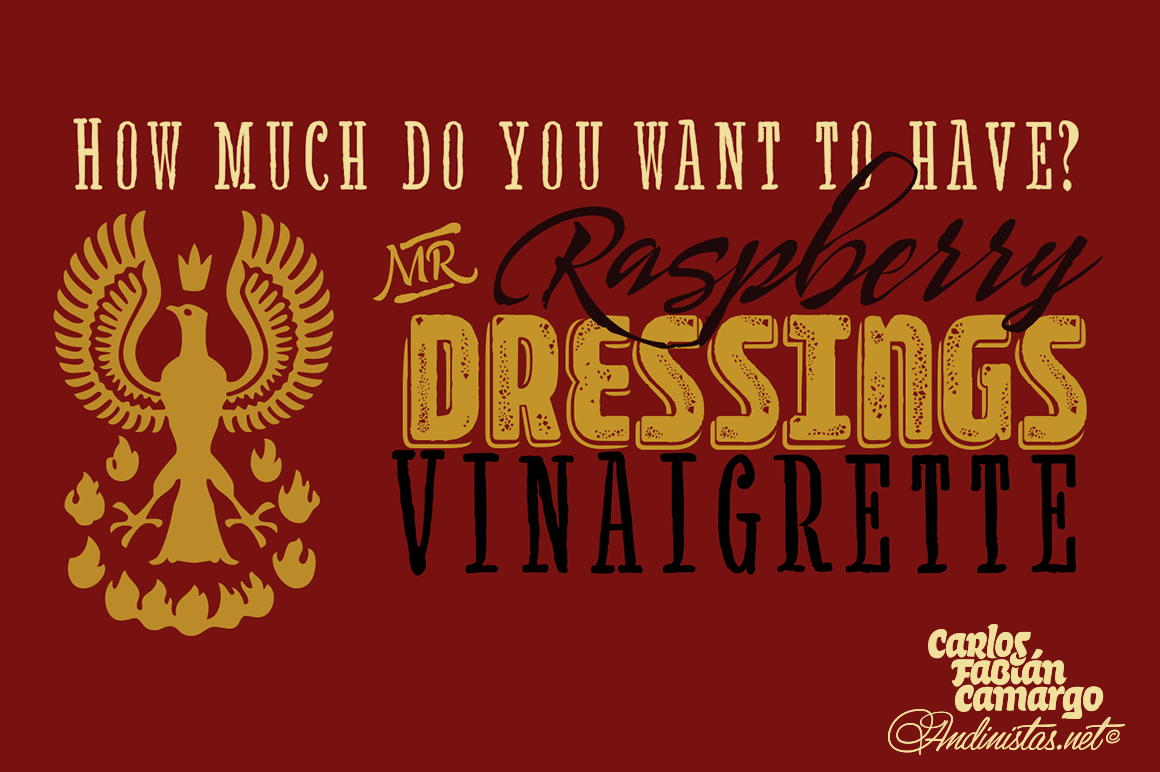
Solar Type Family / 7 fonts
Solar is a font family designed by Carlos Fabian Carmargo G. Its members, together or separate, can be used in packaging, posters, cards, invitations and logos that needs expressive letters with craft features. First, a set of arbitrary ideas were designed on rough paper, and through changes five styles resulted to mix and compose bright words and phrases.
Solar Script comes from crossbreeding and the collusion of primitive visceral strokes and calligraphy on textured paper. This way its letters were planned for empty and full areas deteriorated sometimes simulating irregular ink clots. Therefore, the simulate trajectories with bold brushstrokes made that it works especially well in sizes larger than 12 points. Its rhythmic vitality and energy give personality, reflected in uninterrupted rapid and logical talics with strokes.
Solar Words has more than 115 words unstable and inclined. Solar Dingbats has more than 100 brightness generating drawings, Solar Sans and Serif are capitals combined with other members of the family